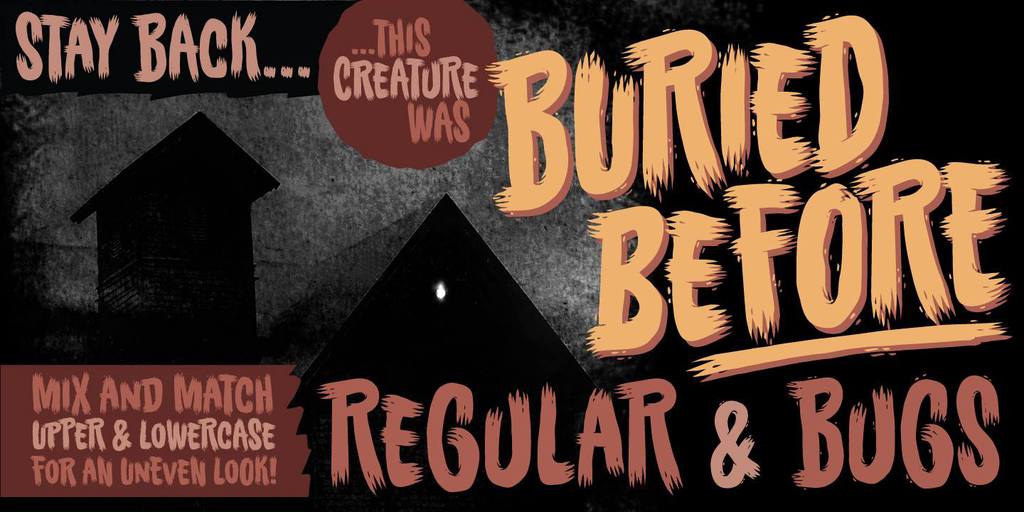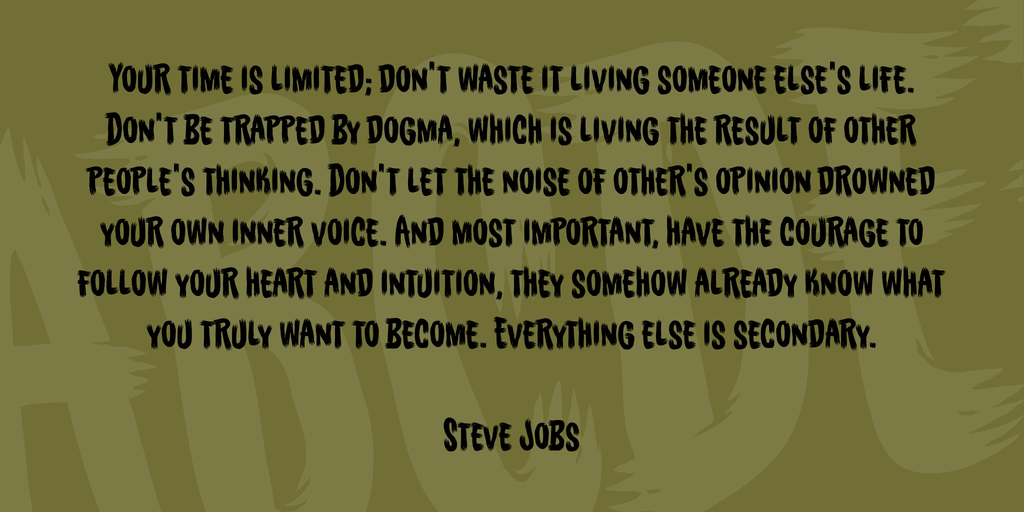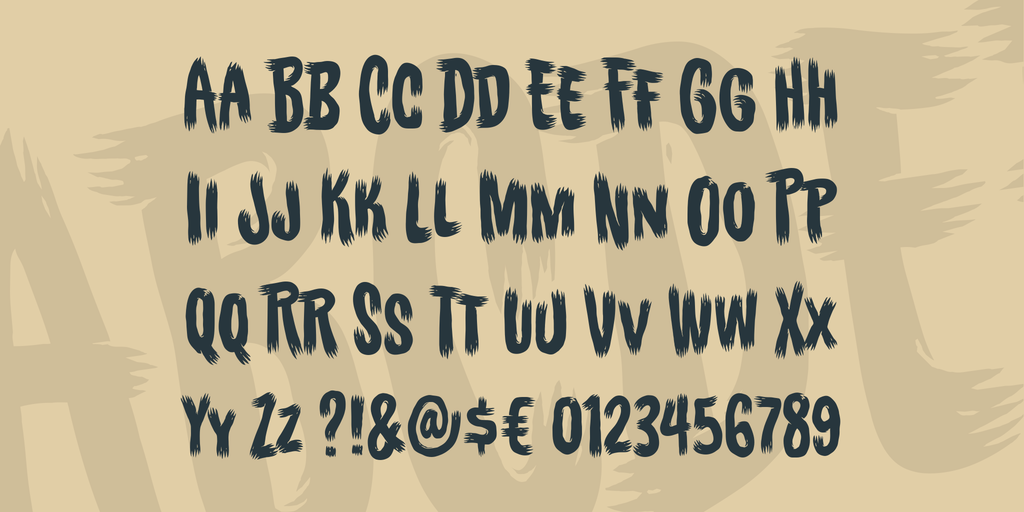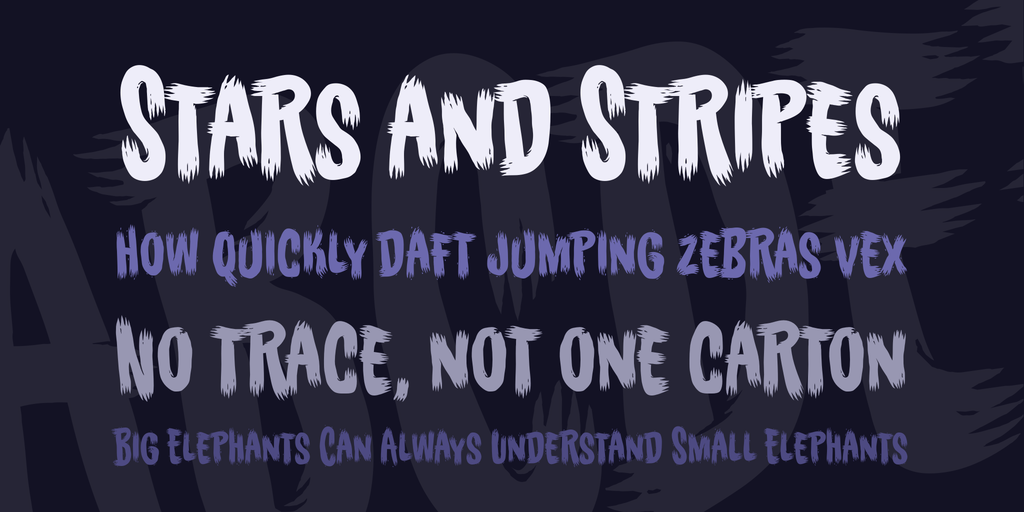
Buried Before Font Family
Buried Before Font Family Made by Blambot Comic Fonts
Just in time for your Halloween needs, I’ve got a horror title font with a brush-like, vintage flair for you. It comes with Regular and Bugs, (some little floating doodads around the letters.)